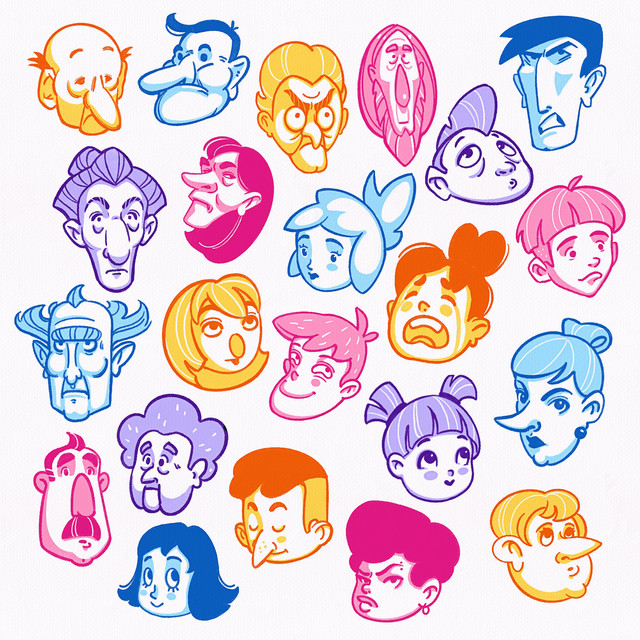
PezZcadoTypeFace
TypeFace is an unusual and special font that has many faces
This a personal typographic and illustration project.
TypeFace est une police un peu spéciale qui a plusieurs visages
C'est un projet personnel mélangeant la typographie et l'illustration. Je l'avais débuté en janvier dernier, mais je n'aimais pas le résultat... Alors, cette semaine, j'ai tout recommencer à partir de zéro et voilà ce que ça donne (c'est beaucoup mieux à mon avis )
Lol! this is truly brilliant. I've been crazy into typography and language stuff for the past few years, and I've come to believe that each unique letter shape has it's own 'character' about it. That's how the human eye recognizes them. And this is such a unique and literal way of conveying that concept! And well executed at that.
I'm not sure why, but the G and the R are my favorite in this image.
I'm from Belgium and I can see the obvious Frech cartoonish comic book style
Great work, they are all so distinct and recognizable bravo!
J'aime beaucoup, mais je trouve que le X et le W ne sont pas très clair ^^
Merci Ouais, y'a des lettres moins évidentes que d'autres... mais bon, d'après tout les commentaires que j'ai lu, ça varie d'une personne à l'autre